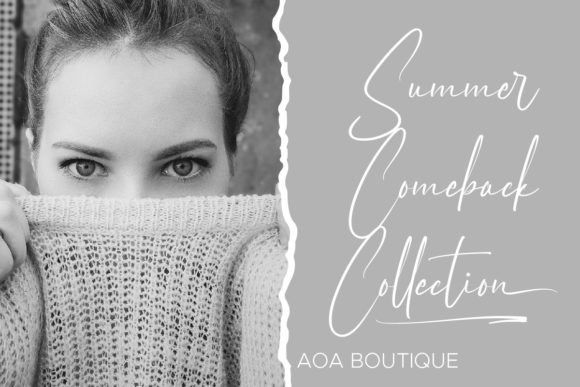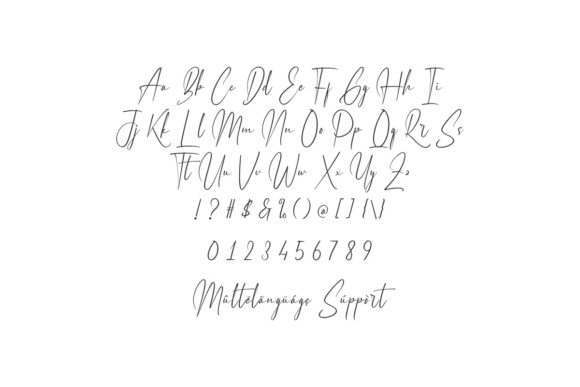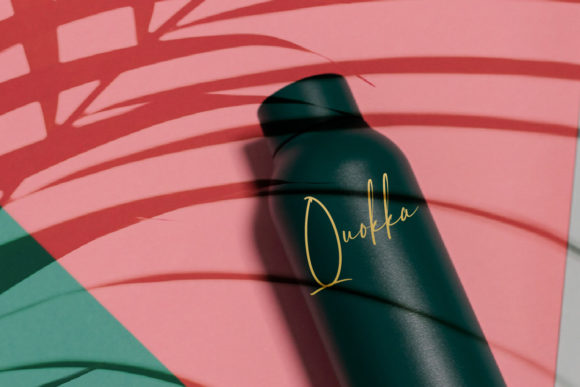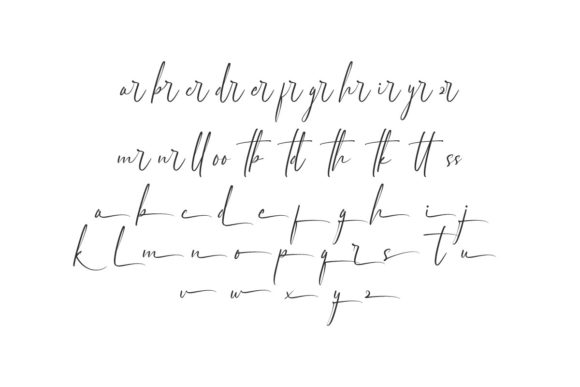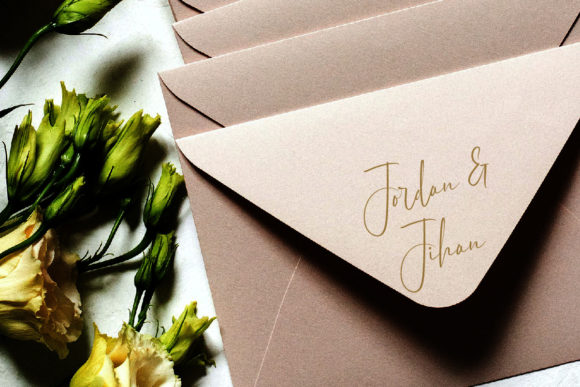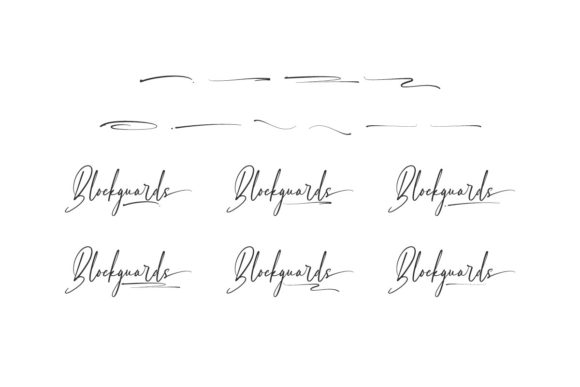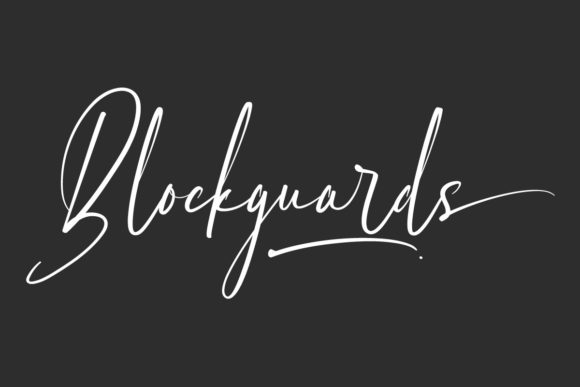
Introducing Blockguards Font: Elevate Your Designs with Elegance and Sophistication
In the world of design, the right font can make all the difference. It can elevate your project from ordinary to extraordinary, conveying the perfect tone and style to your audience. For designers and crafters looking for a high-quality font that exudes elegance and sophistication, look no further than Blockguards Font. This slim script font is specifically designed for packaging products, invitation cards, flyers, mockups, event posters, and anything else that requires a touch of luxury.
What is Blockguards Font?
Blockguards Font is a beautifully crafted slim script font that is perfect for adding a touch of elegance to any design project. Its sleek and sophisticated lines make it ideal for a wide range of applications, from packaging products to event posters. The font is designed to be highly versatile, allowing designers to use it in various contexts to create stunning visual effects.
Key Features of Blockguards Font
• PUA Encoded: Blockguards Font is PUA (Private Use Area) encoded, which means that it includes a wide range of glyphs and swashes that can be easily accessed. This feature makes it incredibly easy to use and customize, allowing designers to create unique and complex designs with minimal effort.
• Slim Script Style: The font features a slim script style that is both elegant and sophisticated. Its sleek lines and curves make it perfect for creating high-end designs that require a touch of luxury.
• High-Quality Vibes: Blockguards Font is designed to provide high-quality vibes, making it perfect for designs that require a professional and polished look. Whether you’re creating packaging products, invitation cards, or event posters, this font is sure to impress.
Use Cases for Blockguards Font
Blockguards Font is an incredibly versatile font that can be used in a wide range of design projects. Here are some of the most popular use cases:
• Packaging Products: Add a touch of elegance to your product packaging with Blockguards Font. Its slim script style and high-quality vibes make it perfect for luxury brands and high-end products.
• Invitation Cards: Create stunning invitation cards with Blockguards Font. Its sophisticated lines and curves make it perfect for formal events, weddings, and parties.
• Flyers and Brochures: Use Blockguards Font to create eye-catching flyers and brochures that grab attention. Its sleek and modern design makes it perfect for promoting products, services, or events.
• Mockups: Blockguards Font is perfect for creating stunning mockups that showcase your design skills. Its high-quality vibes and elegant style make it perfect for presenting designs to clients or showcasing your portfolio.
• Event Posters: Create stunning event posters with Blockguards Font. Its slim script style and sophisticated lines make it perfect for promoting concerts, festivals, or corporate events.
Why Choose Blockguards Font?
There are many fonts available in the market, but Blockguards Font stands out from the rest. Here are some reasons why you should choose Blockguards Font for your next design project:
• Elegance and Sophistication: Blockguards Font exudes elegance and sophistication, making it perfect for high-end designs that require a touch of luxury.
• High-Quality Vibes: The font is designed to provide high-quality vibes, making it perfect for designs that require a professional and polished look.
• Easy to Use: Blockguards Font is PUA encoded, making it easy to access and use. Its simple and intuitive design makes it perfect for designers of all skill levels.
• Versatility: The font is incredibly versatile, making it perfect for a wide range of design projects. Whether you’re creating packaging products, invitation cards, or event posters, Blockguards Font is the perfect choice.
In conclusion, Blockguards Font is a stunning slim script font that is perfect for designers and crafters looking for a high-quality font that exudes elegance and sophistication. Its PUA encoded design, slim script style, and high-quality vibes make it perfect for a wide range of design projects. Whether you’re creating packaging products, invitation cards, flyers, mockups, or event posters, Blockguards Font is the perfect choice. So why wait? Download Blockguards Font today and elevate your designs to the next level!